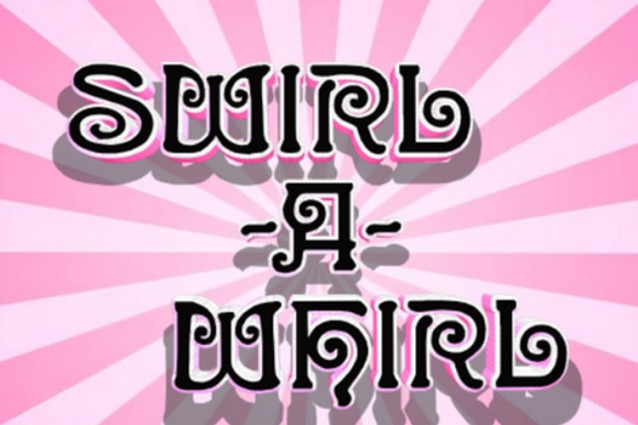
Swirl-a-Whirl Font
Swirl-a-Whirl Font a decorative display font that perfectly blends vintage charm with a playful, modern twist. Characterized by its dramatic swirls, elegant curves, and bold structure, this typeface is designed to turn heads and add a touch of magic to any project.